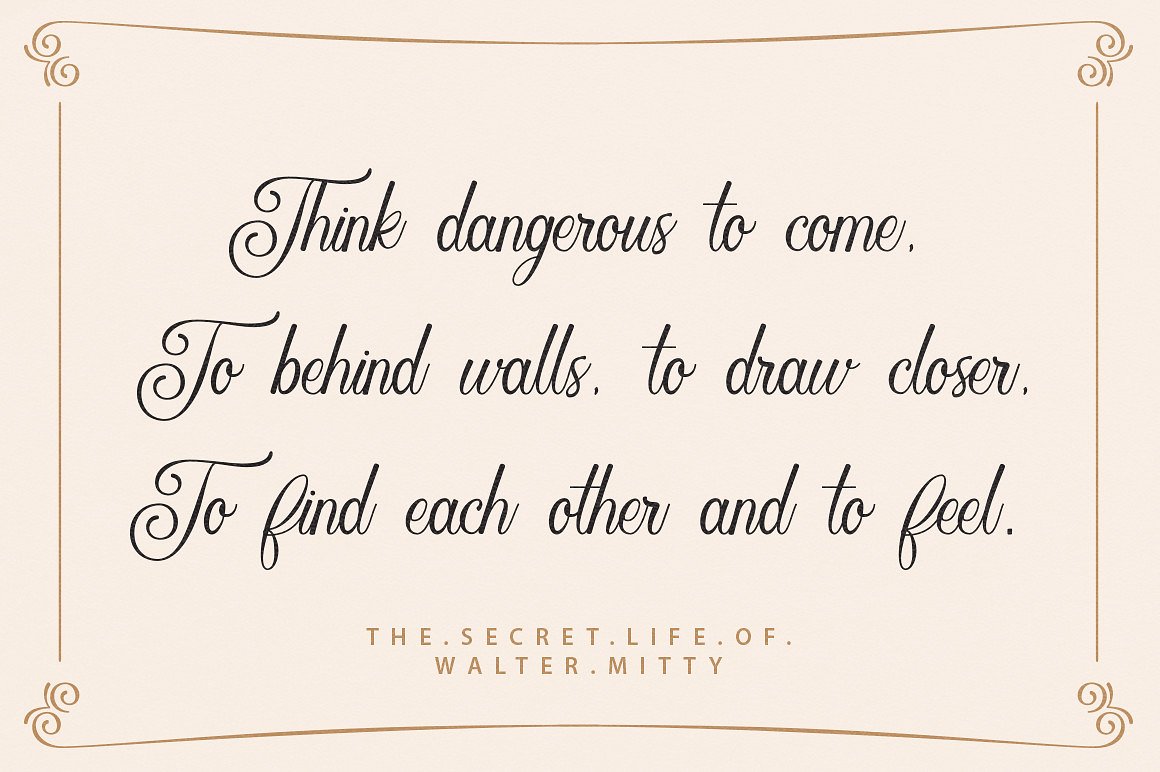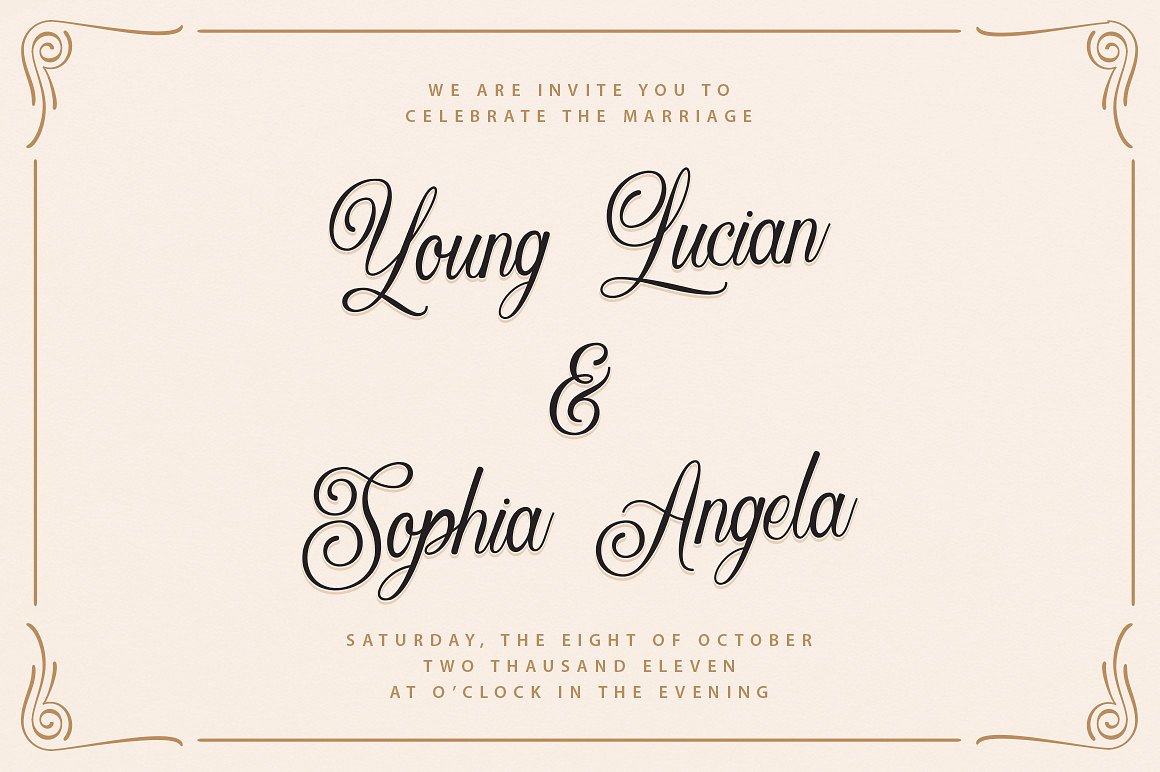
Rosaline Script Font
db-ku.com - Script & Handwritten -- Rosaline is a luxurious calligraphy font. This is the kind of font that you will keep using over and over again.